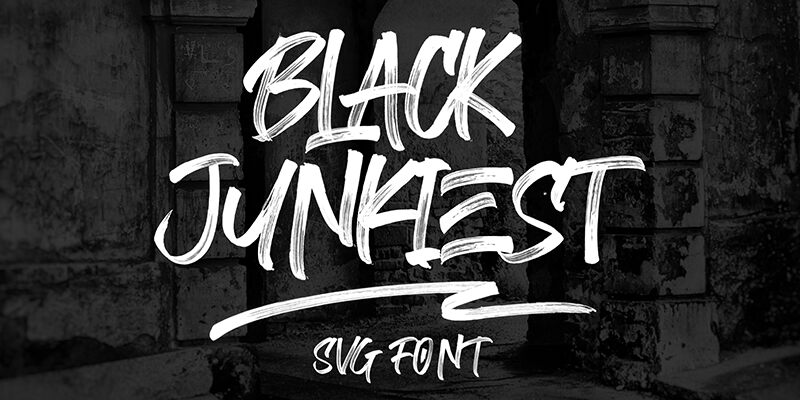
Black Junkiest font by Ibrahima Studio is a free brush font with an expressive and energetic style. Inspired by street art and urban vibes, this typeface is dynamic and original. The font is contemporary and fresh and has an informal feel that in certain contexts can feel also playful. A high-impact design and contemporary cultural appeal make it interesting for art and branding projects that need to stand out.
Designers and artists are among the individuals that will find this typeface most useful. Try it out for your logos, advertisements, campaigns, or packaging. You may also use it for websites, posters, t-shirts, or social media posts. Generally, it is very suitable for branding, especially of businesses that cater to younger audiences.